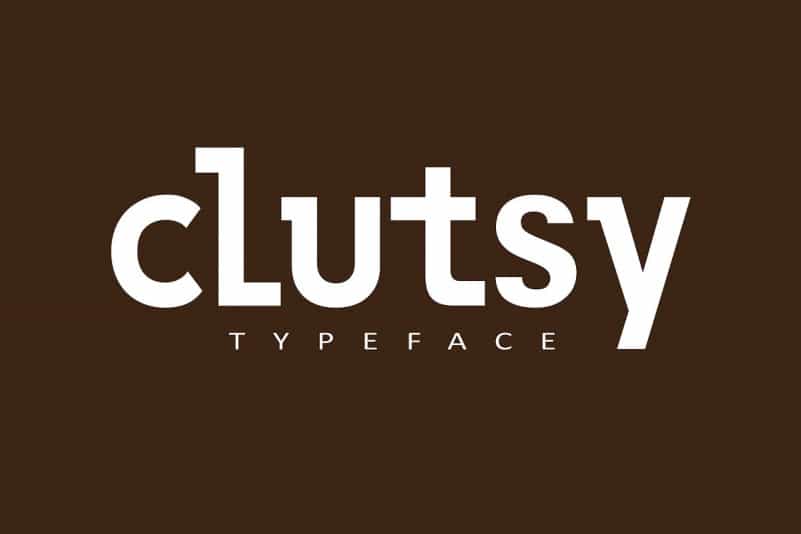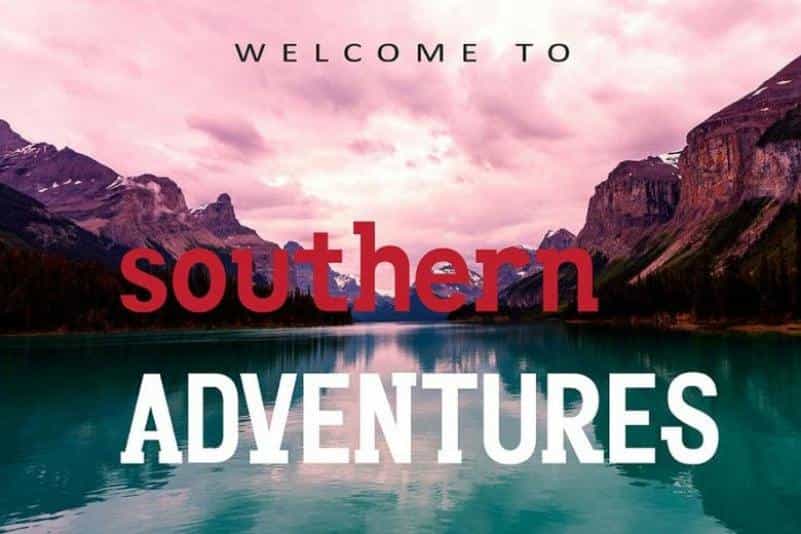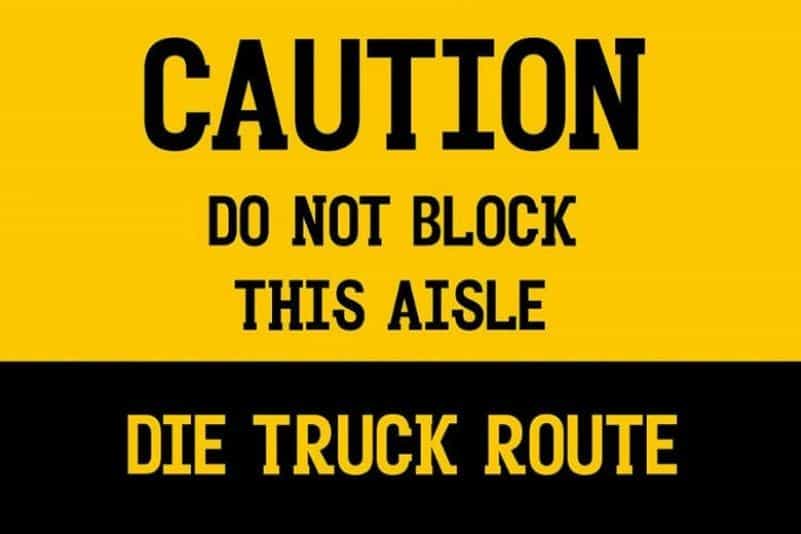
The old school slab serif font “Clutsy Font” – a new slab serif font by aminmario is now available. CLUTSY is a typeface family font, which has a playful and modern chunky feel to it. Though it was primarily intended for use as an all caps font, I have also included a lowercase set in case the situation so requires.